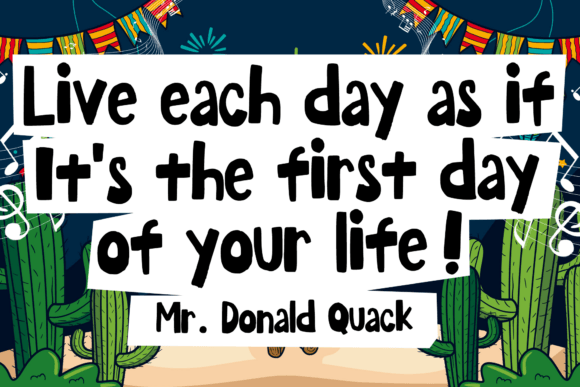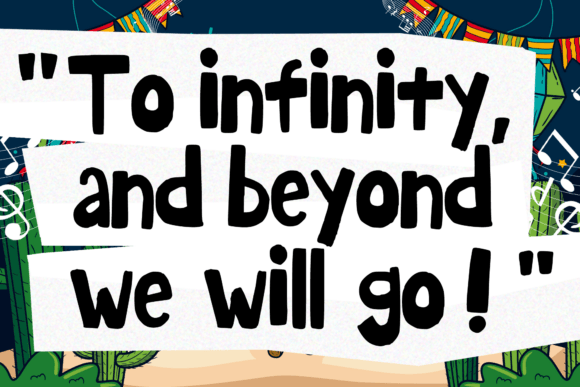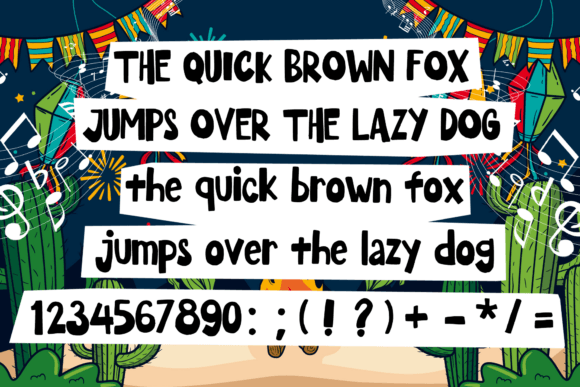
Have you ever stared at a blank canvas, wondering which font will bring your design to life? We’ve all been there. The moment when everything comes together, and your creation bursts with personality. That’s exactly what the Jackstar Festival Font is designed to do – add a sprinkle of magic to your designs.
This cute and festive cartoon display font is perfect for elevating a wide range of design projects. From stickers and t-shirt designs to logo creations and magazine covers, the Jackstar Festival Font will add a super cool touch to your work. Its versatility and charm make it a valuable addition to any designer’s toolkit, helping to take their projects to the next level.
Key Features of Jackstar Festival Font
- Font Style: Display font with a futuristic and energetic feel, ideal for festival and concert branding.
- Unique Characteristics: The font features a unique blend of geometric and organic shapes, giving it a distinctive and eye-catching appearance that sets it apart from other display fonts.
- Kerning and Ligatures: Includes advanced kerning and ligature features, ensuring that the font looks its best even at small sizes and in complex text settings.
Jackstar Festival Font Review
Overall, I found the Jackstar Festival Font to be a unique and playful choice for designers looking to add a touch of whimsy to their projects.
- Highly customizable: The font offers a range of options for adjusting the color, size, and style of the text, making it easy to integrate into various design projects.
- Fun and festive vibe: The Jackstar Festival Font is perfect for creating eye-catching headings and titles that add a celebratory feel to designs.
- Works well in digital and print formats: The font is suitable for use in a variety of mediums, from website headers to posters and flyers.
- Limited legibility: In some cases, the font’s playful design can make it difficult to read, particularly at smaller font sizes or in low-light conditions.
- Not ideal for formal or professional projects: The Jackstar Festival Font’s lighthearted and playful nature may not be suitable for more formal or professional designs.
Overall, I would recommend the Jackstar Festival Font for designers looking to add a fun and festive touch to their projects. However, it’s essential to consider the font’s limitations and ensure it’s used in a way that effectively communicates the desired message.
Getting the Most Out of Jackstar Festival Font
For the best results, use Jackstar Festival Font in bold or italic styles to add emphasis and visual interest. Experiment with different font combinations to create a unique and eye-catching design. Consider using the font in conjunction with bold or bright colors to create a striking visual effect.
The Jackstar Festival Font is ideal for creating eye-catching designs for music festivals, concerts, and other events. It’s also suitable for use in branding, marketing materials, and promotional items.